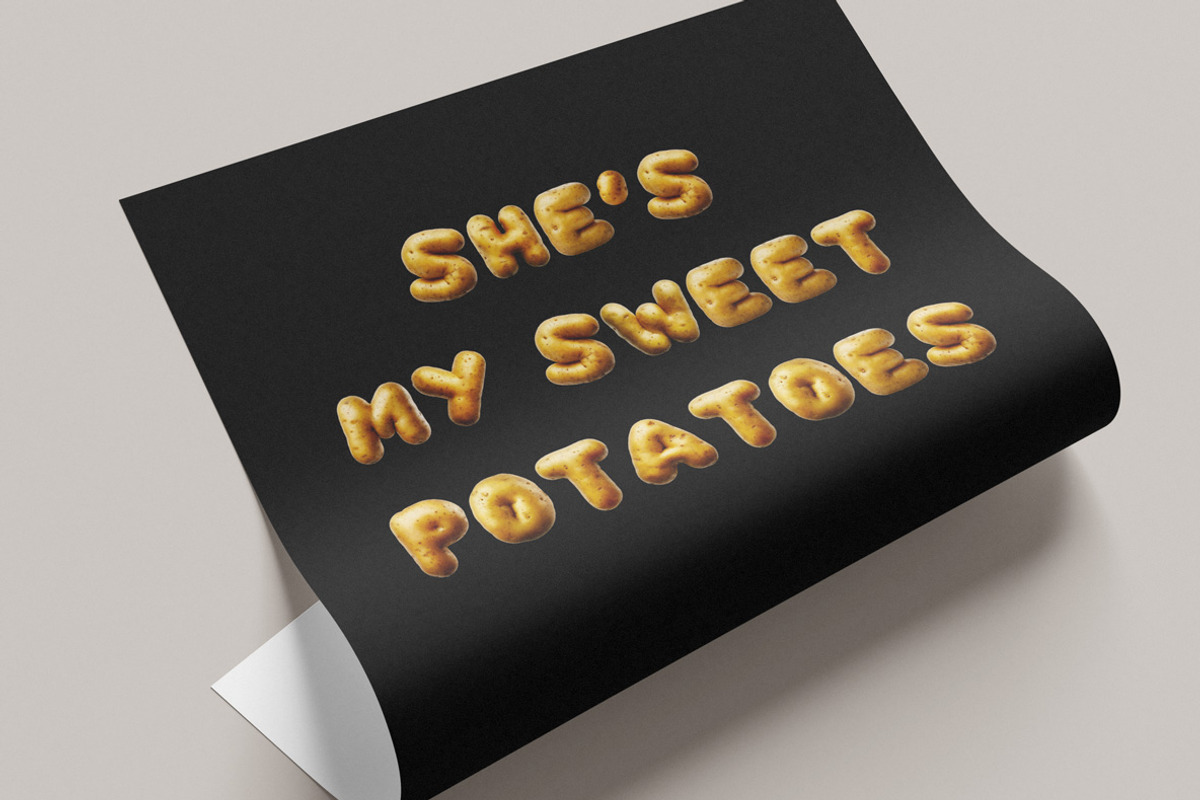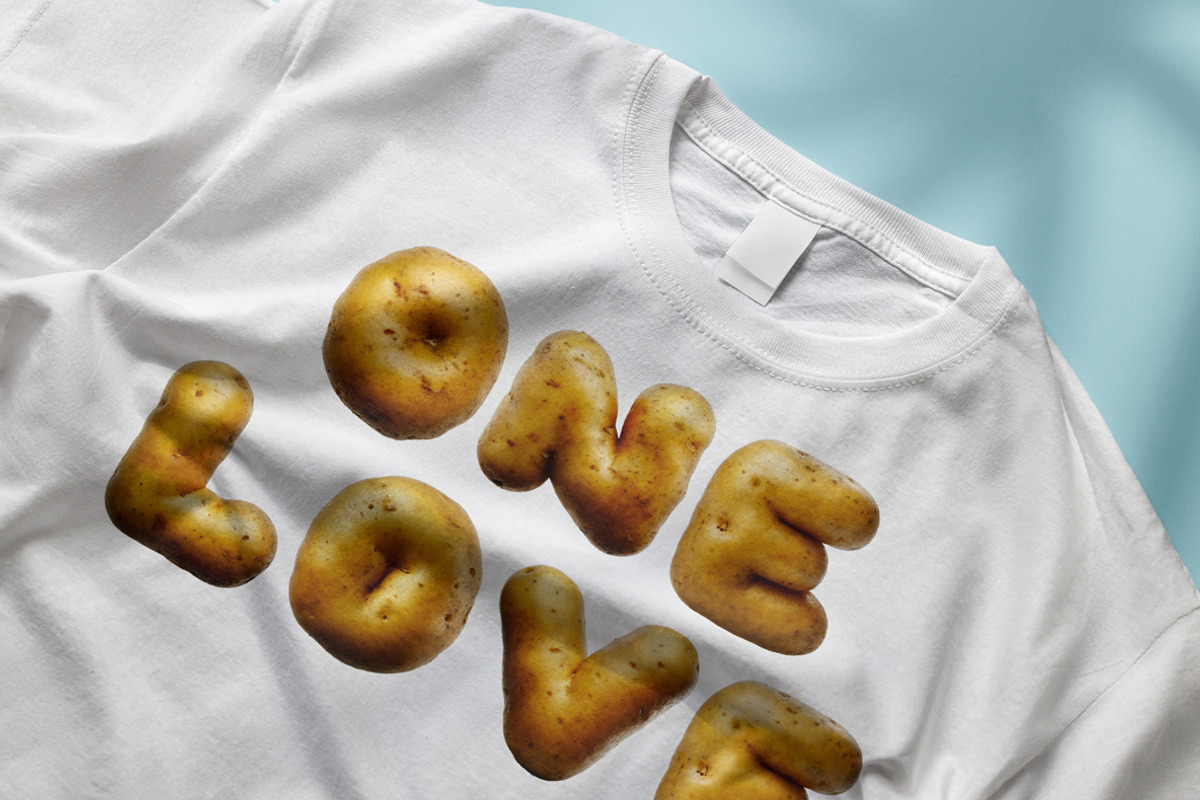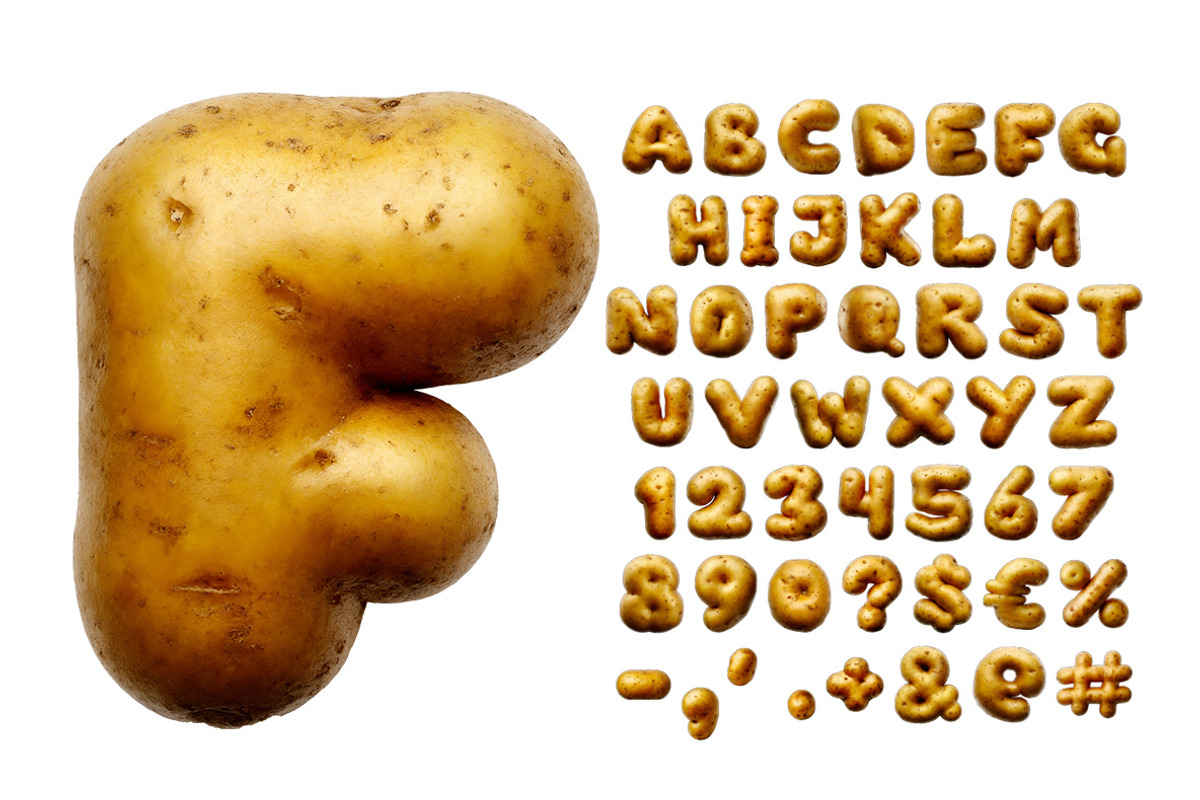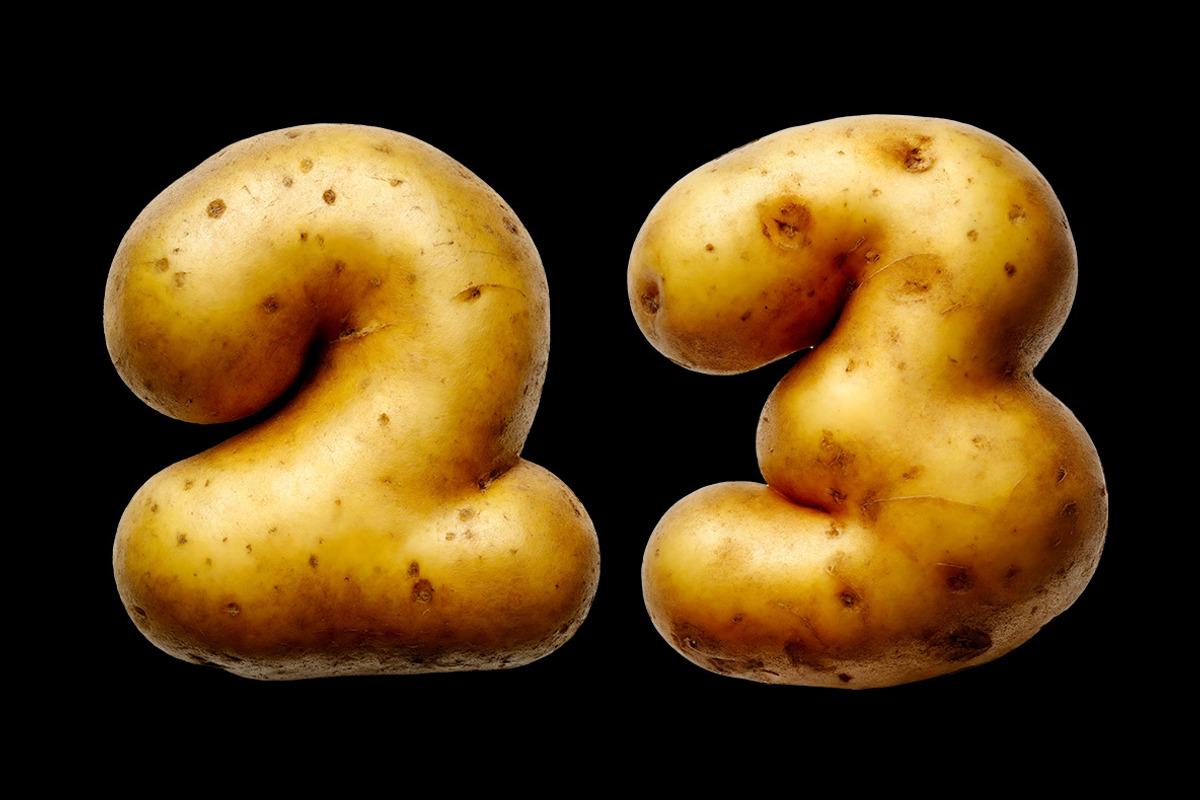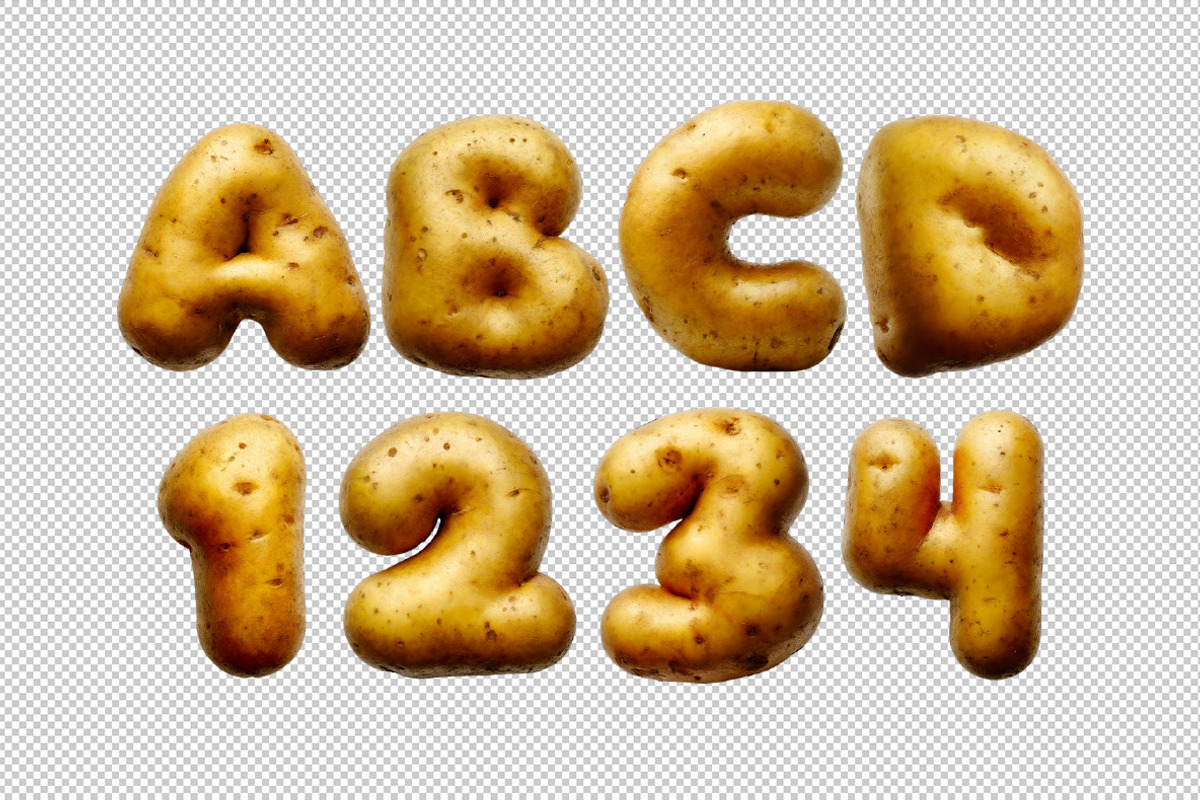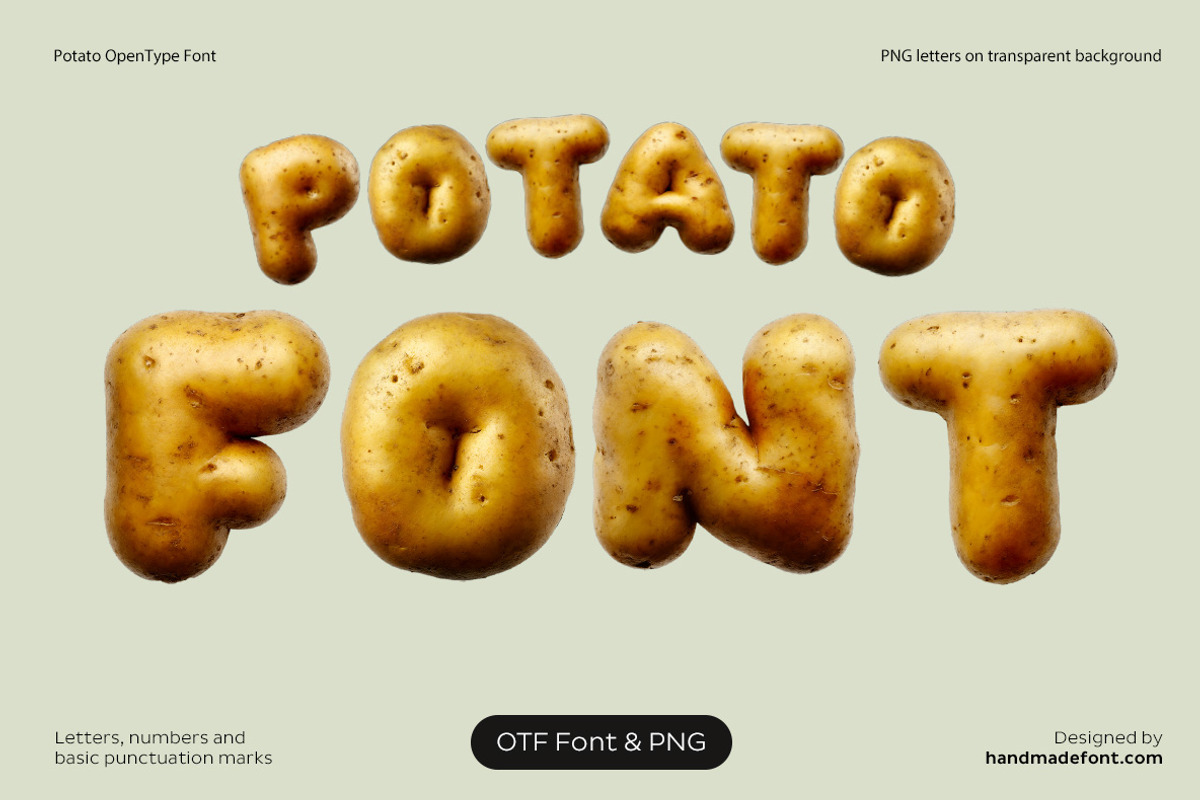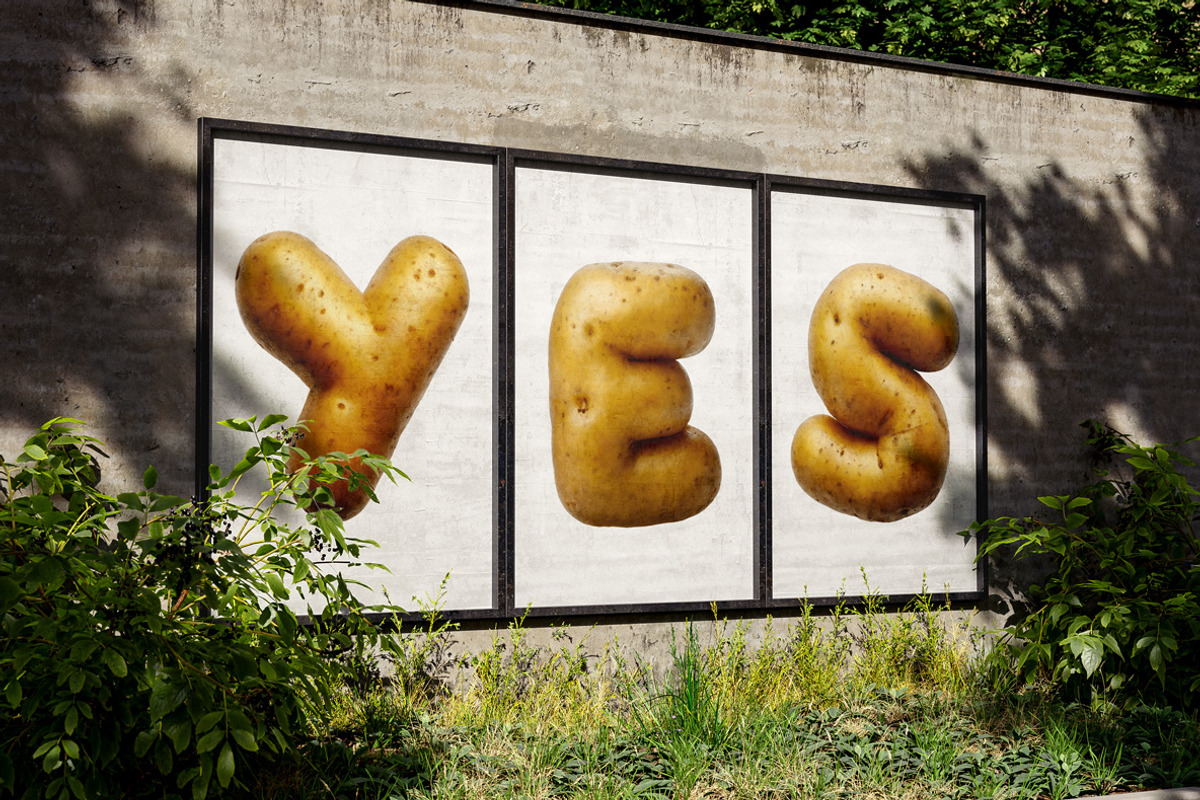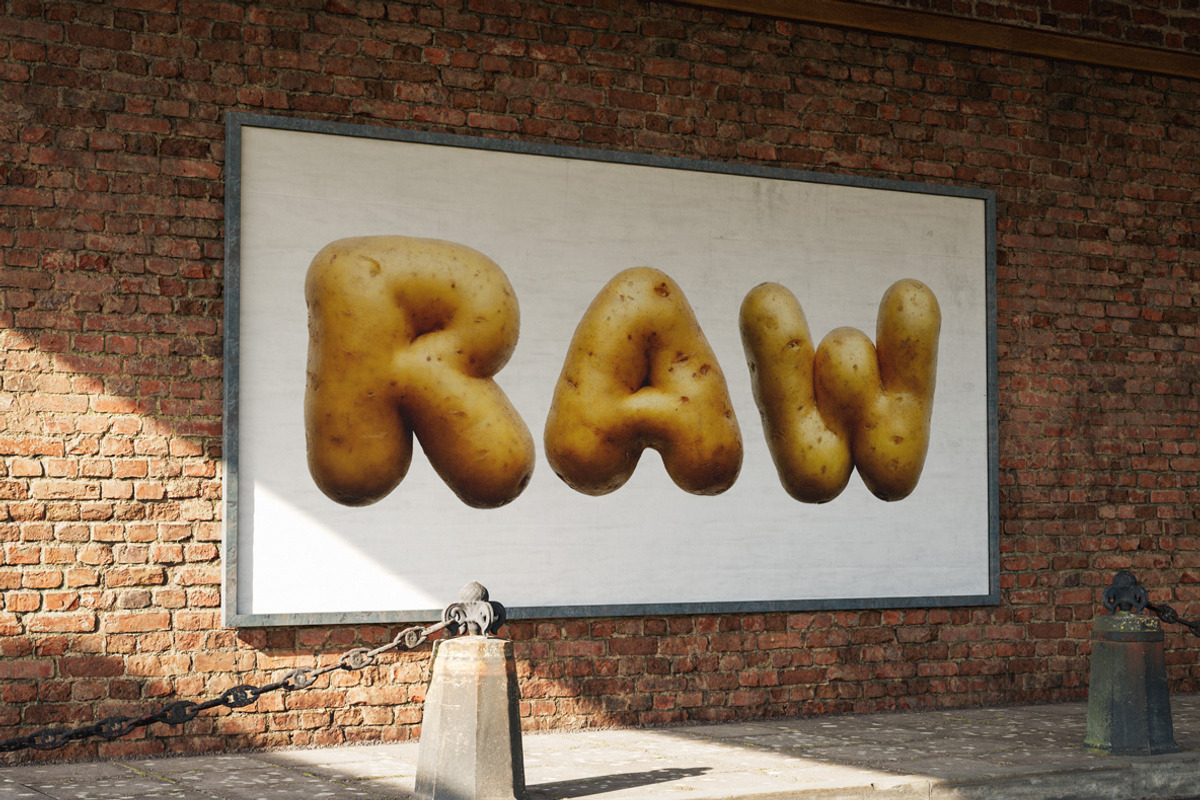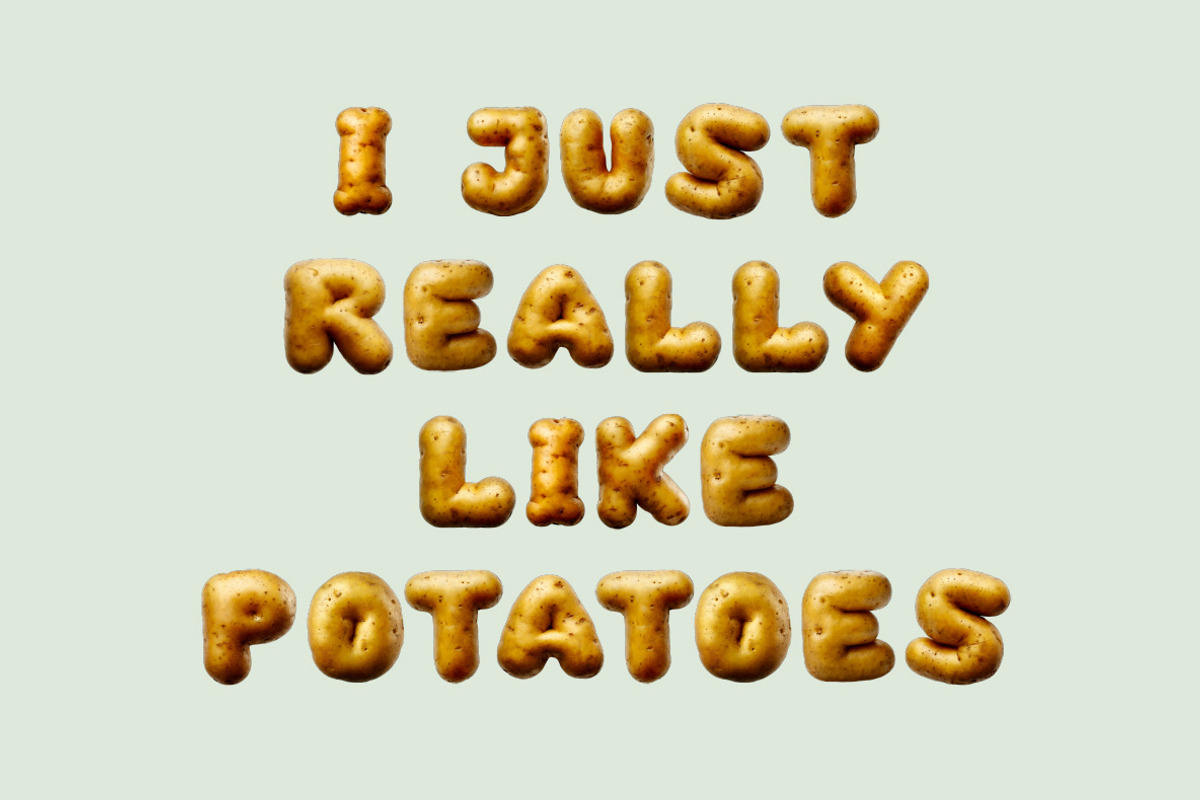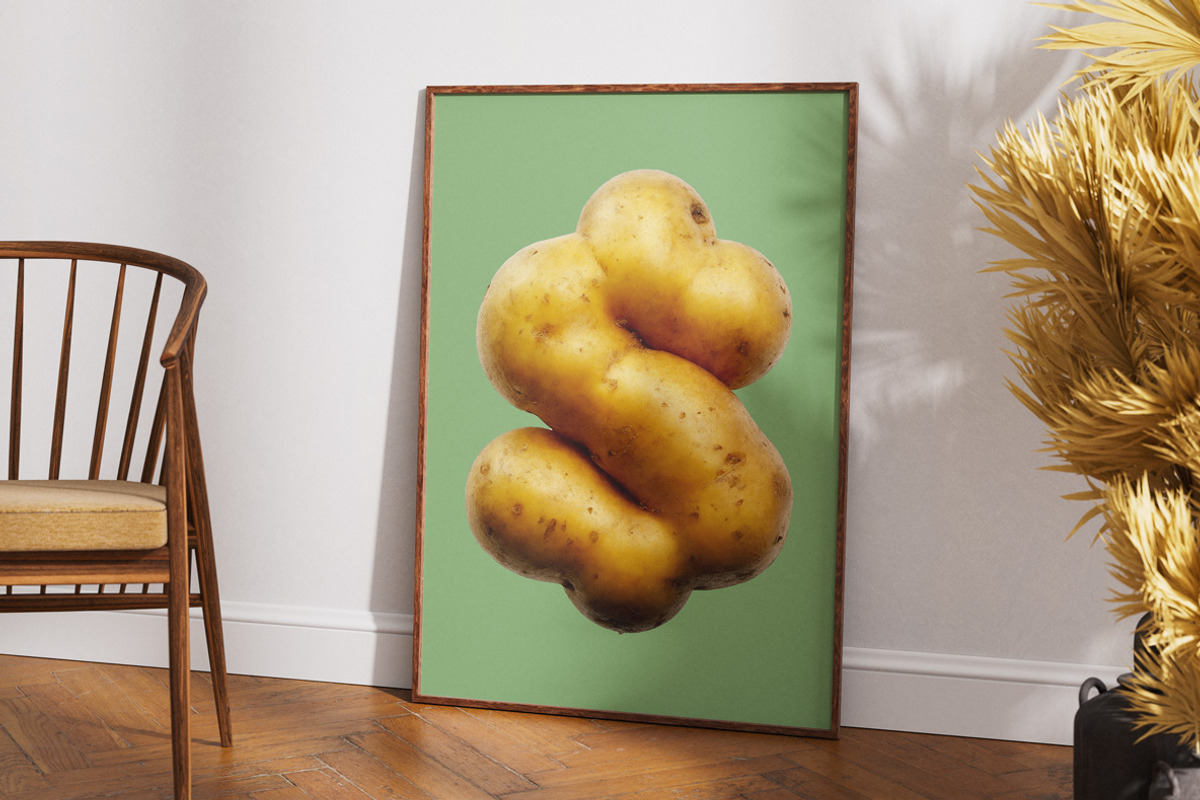
Potato Font
Introducing Potato Font – a quirky, earthy typeface inspired by everyone’s favorite root vegetable! Each letter mimics the unique textures and rounded shapes of real potatoes, capturing that raw, brown potato feel. Perfect for playful designs, organic brands, or any project needing a touch of rustic charm. Dive into the wholesome world of potato-inspired typography and add a dash of spud-tacular character to your text!